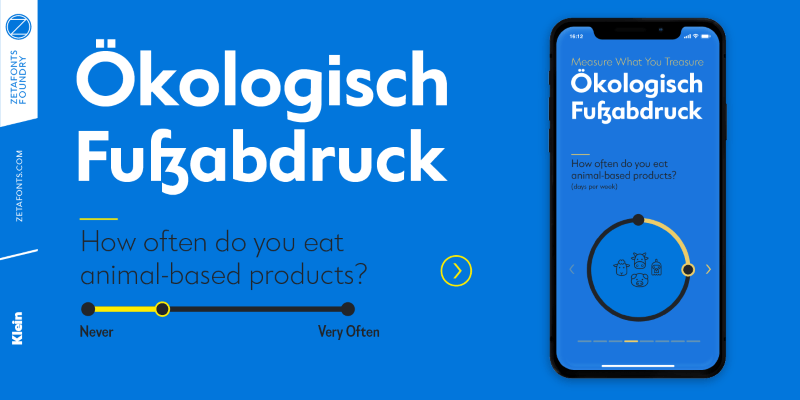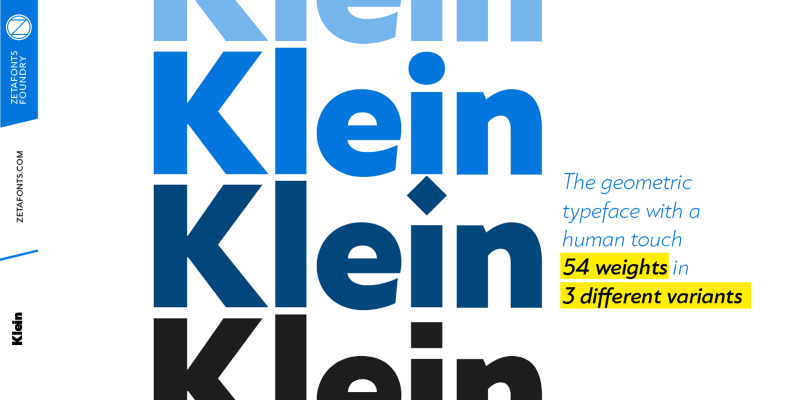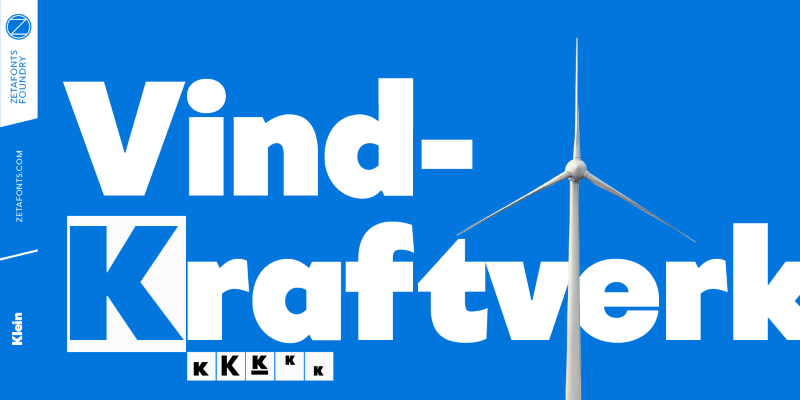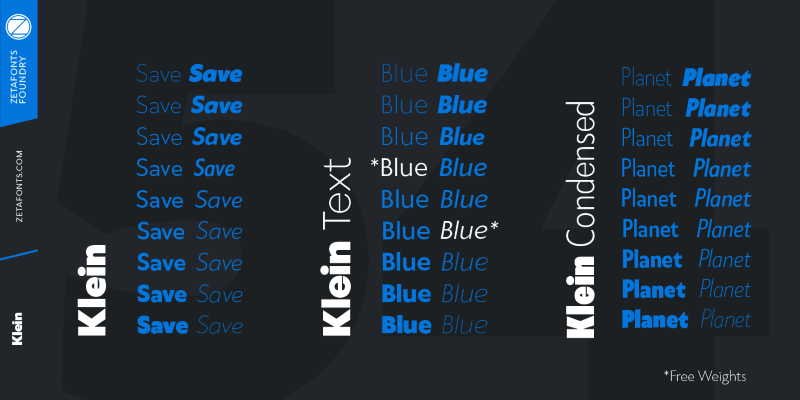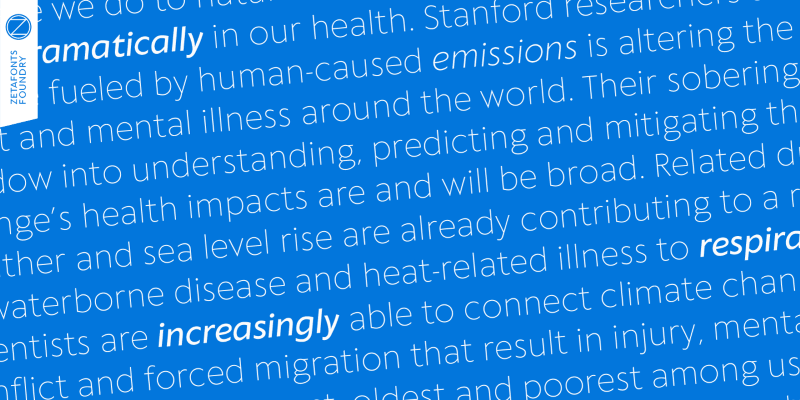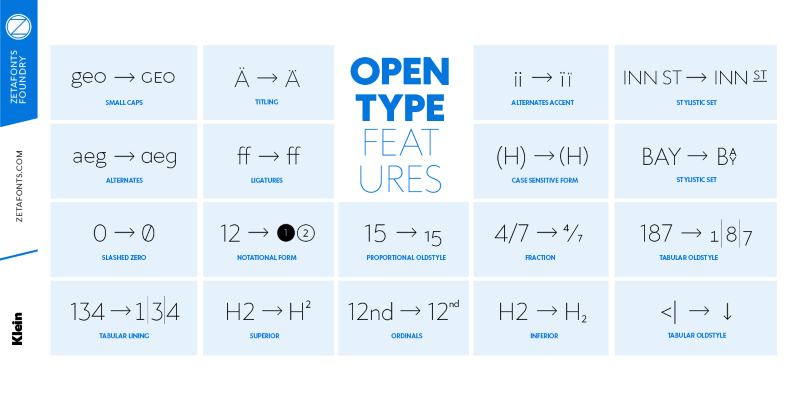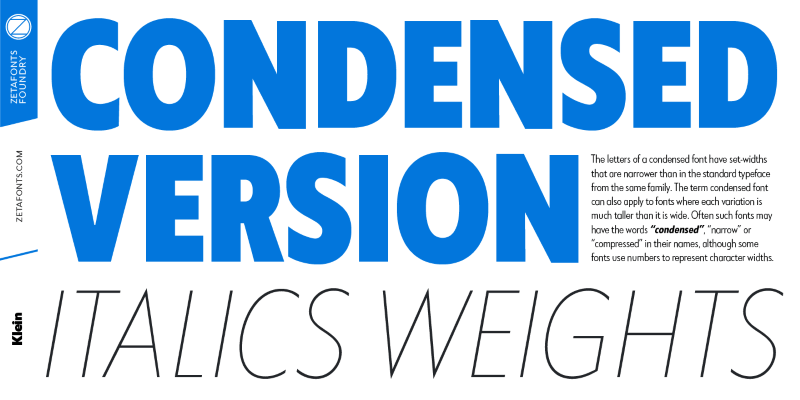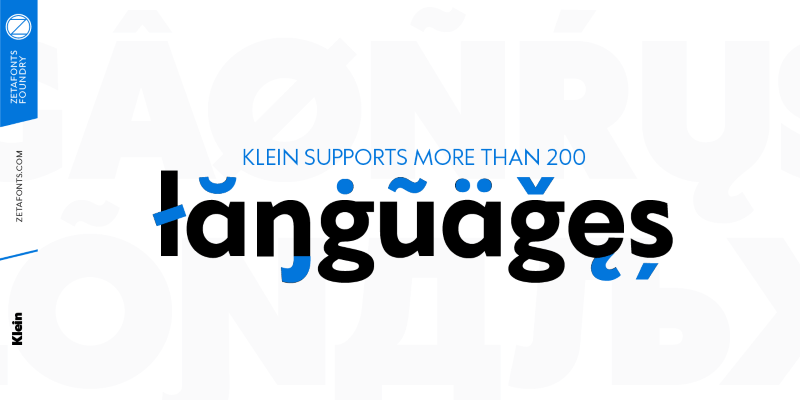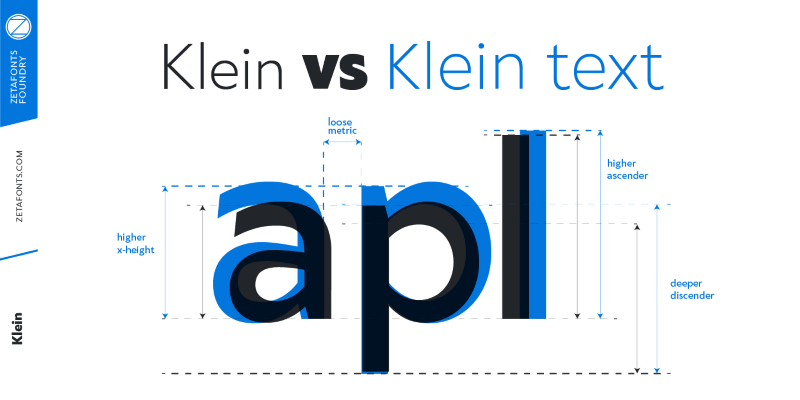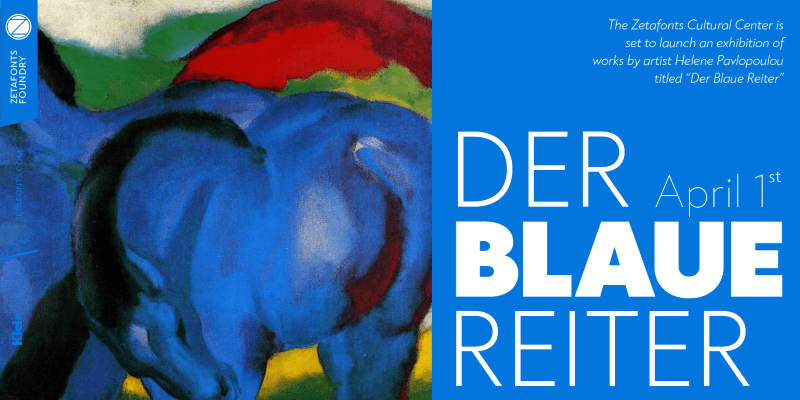
Klein features 3 different variations - display, condensed & text, as well as 9 distinctive weights from Thin to Black as well as matching true italics for every weight. The pack delivers this premium font family in OTF & TTF file formats
Thi font family supports over 200 languages: Western Europe, Central/Eastern Europe, Baltic, Turkish, Romanian, Cyrillic, Greek & several more! Check out the Klein specimen here!
- 1200+ glyphs
- Typeface with 54 font weights
- Variations: display, condensed & text
- Matching true italics for every weight
- Multilanguage support: Western Europe, Central/Eastern Europe, Baltic, Turkish, Romanian, Cyrillic, Greek
- Tons of OpenType features: small caps, positional numerals, fractions, superior & inferior figures, alternate forms, standard & discretionary ligatures